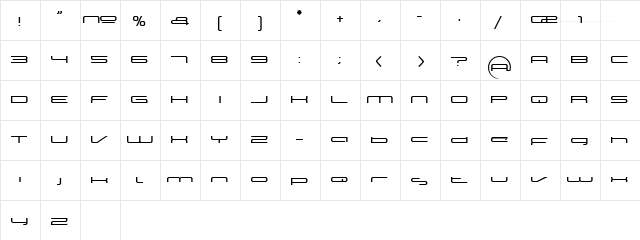
Neutronica Geometric Font Preview
Neutronica Geometric
Neutronica Geometric Font Details
| Style | Geometric |
Design Context for Neutronica Typeface
Neutronica takes a measured approach to typography — its balanced proportions and neutral character make it a reliable workhorse for both digital and print work.